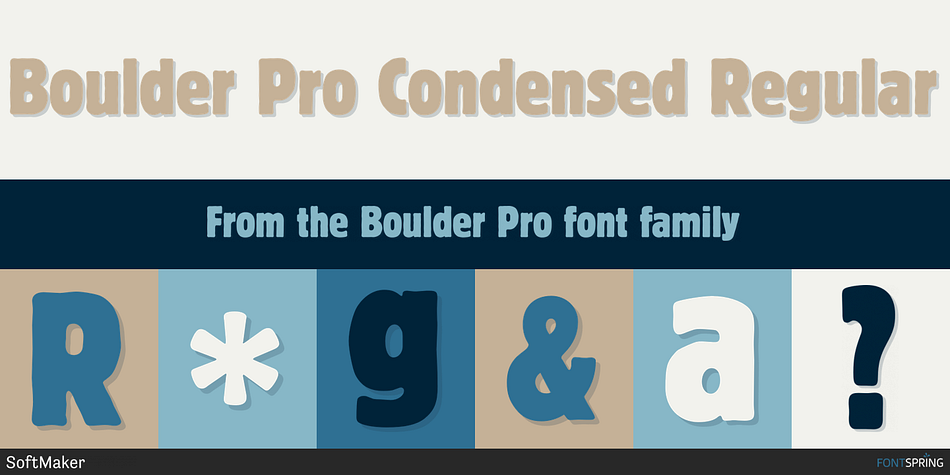
Boulder Pro Condensed Regular
Boulder Pro is a display sans font family. This typeface has three styles and was published by SoftMaker.
Boulder is a sans-serif typeface intended for display use. It has a chunky design suitable for headings, with short descenders allowing tight linespacing and rounded corners. It’s a soft but substantial display face with compact dimensions and an organic appearance and isn’t meant for body copy.